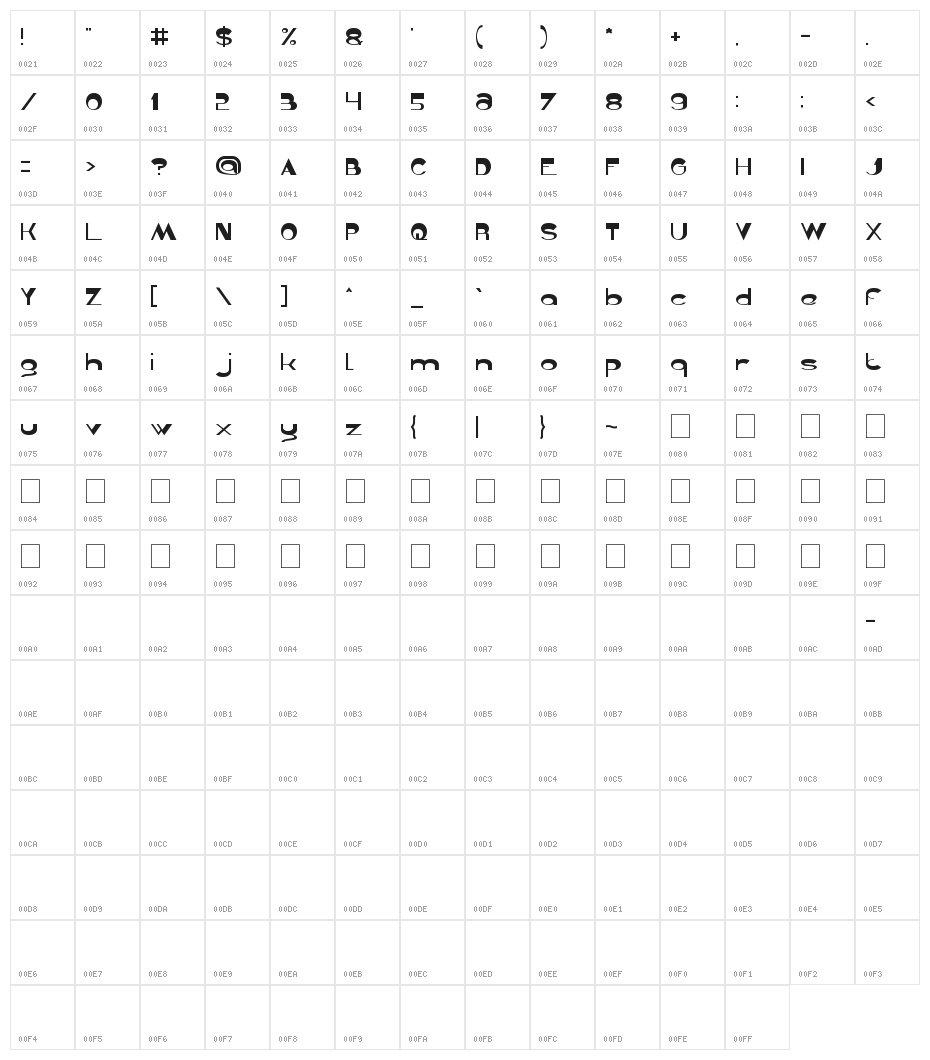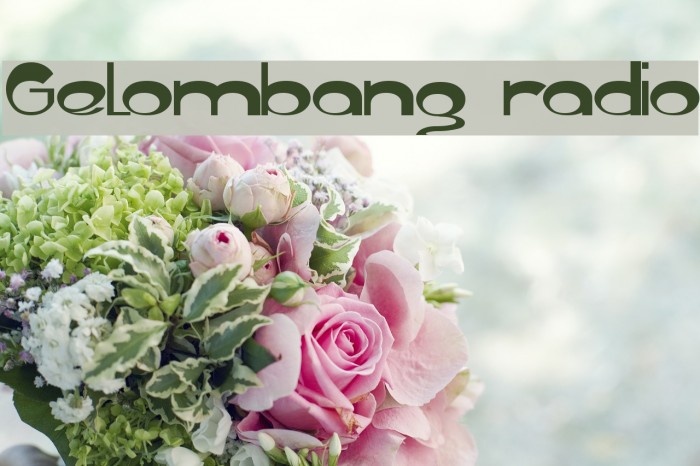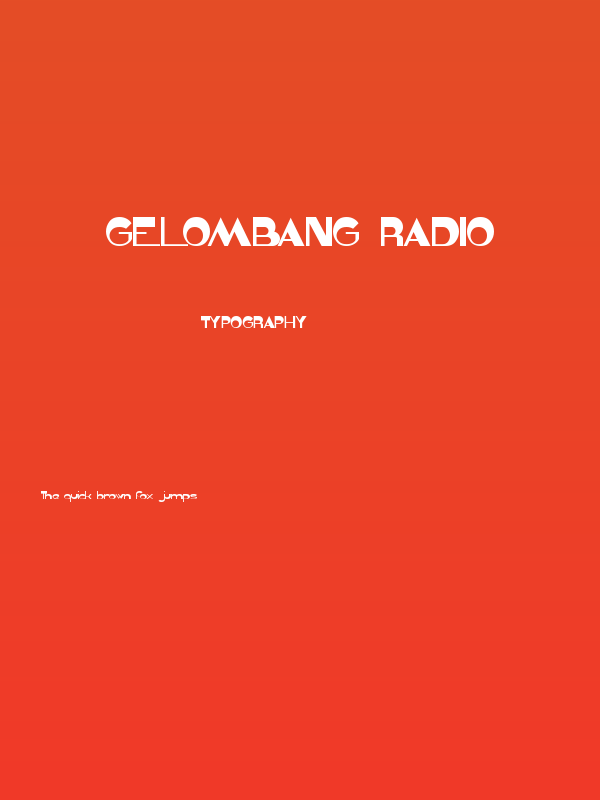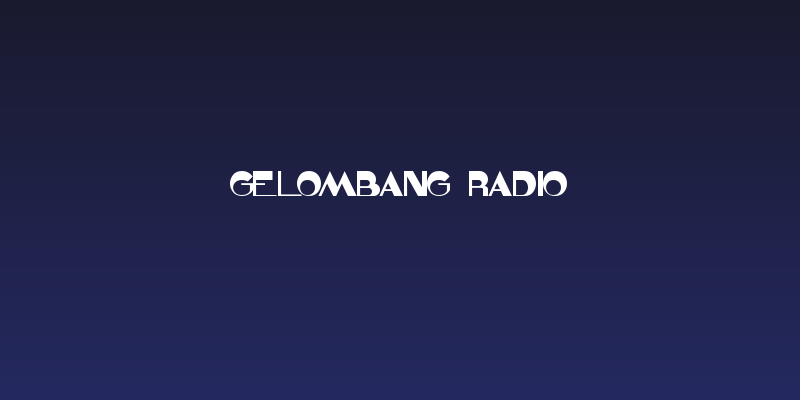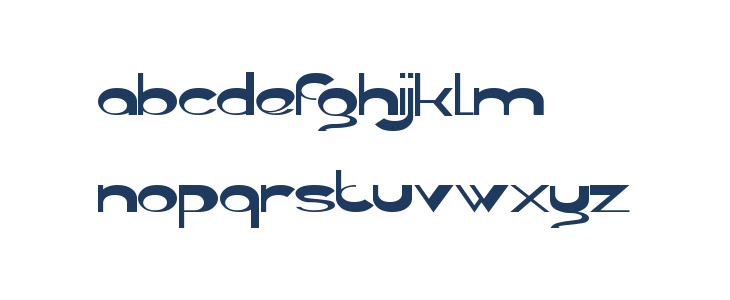
Gelombang radio Font
Gelombang radio Description
This font features a bold and modern design with a unique geometric flair. The uppercase letters are characterized by sharp angles and clean lines, giving them a futuristic appearance. The lowercase letters maintain a similar style, with some characters incorporating unexpected curves and cuts that add a dynamic touch. The numbers are consistent with the overall design, offering a bold and striking look. Special characters are designed to complement the alphabet, maintaining the same geometric and modern aesthetic. This font is ideal for projects that require a contemporary and eye-catching typeface.